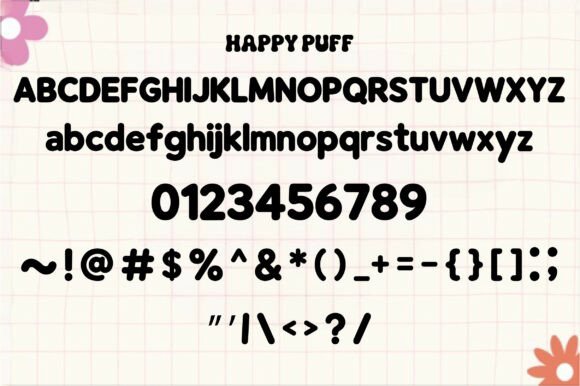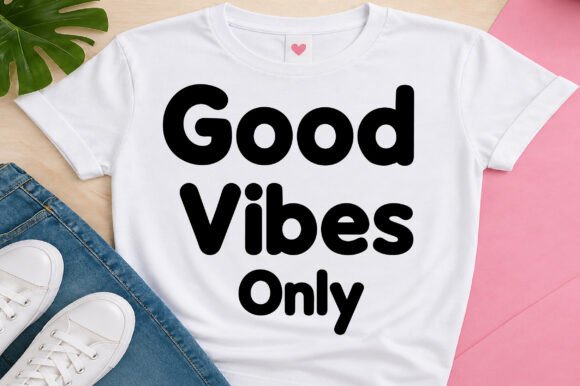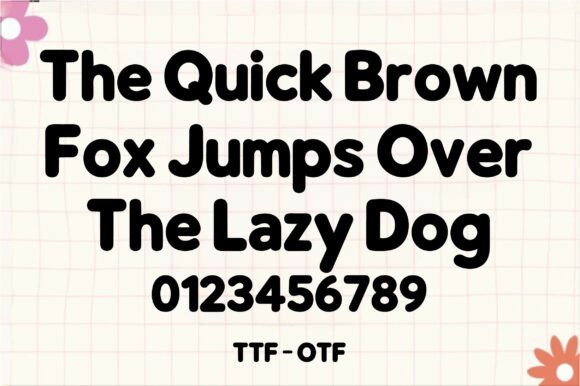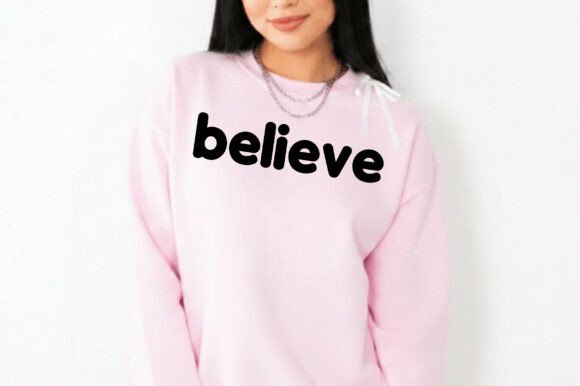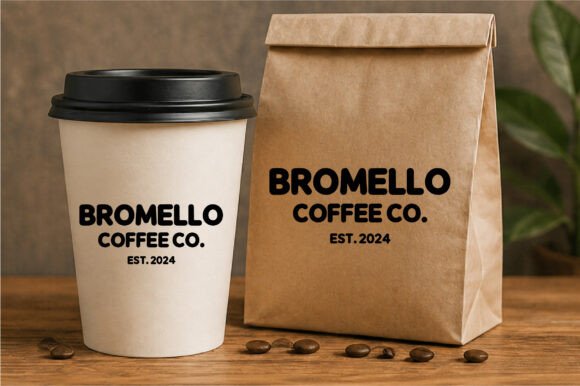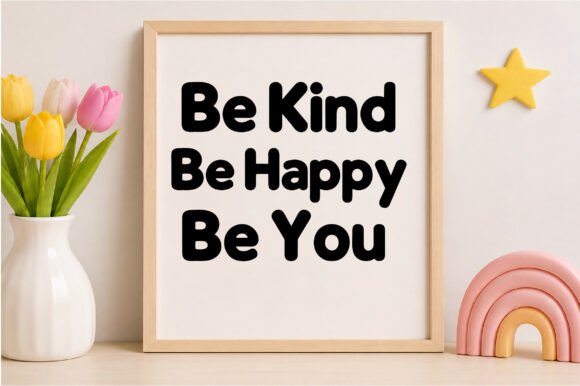
Introducing Happy Puff: The Playful Retro Display Font for Fun Designs
Are you looking for a font that adds a touch of playfulness and nostalgia to your designs? Look no further than Happy Puff, a bold and fun retro display font that’s perfect for kids’ designs, posters, t-shirts, stickers, branding, and social media graphics. With its rounded letters and cartoon style, Happy Puff is sure to bring a smile to your audience’s faces.
What is Happy Puff Font?
Happy Puff is a carefully crafted display font that features bold, rounded letters with a fun and playful twist. Its retro style is reminiscent of classic cartoons and childhood memories, making it an ideal choice for designs that require a touch of whimsy and nostalgia. The font includes uppercase and lowercase letters, numbers, and symbols, giving you everything you need to create engaging and eye-catching designs.
Key Features of Happy Puff Font
- Playful and retro style: Happy Puff’s unique design is sure to grab attention and add a touch of fun to your designs.
- Bold and rounded letters: The font’s bold and rounded letters make it perfect for creating eye-catching designs that are easy to read.
- Uppercase, lowercase, numbers, and symbols: Happy Puff includes a wide range of characters, giving you the flexibility to create a variety of designs.
- Perfect for kids’ designs: The font’s playful style makes it an ideal choice for designs aimed at children, such as kids’ party invitations, children’s book illustrations, and more.
Use Cases for Happy Puff Font
Happy Puff is a versatile font that can be used in a variety of design projects, including:
- Kids’ designs: Happy Puff is perfect for creating fun and engaging designs for kids, such as party invitations, children’s book illustrations, and kids’ clothing.
- Posters and flyers: The font’s bold and playful style makes it ideal for creating eye-catching posters and flyers for events, promotions, and more.
- T-shirts and apparel: Happy Puff is a great choice for designing t-shirts, stickers, and other apparel that requires a fun and playful touch.
- Branding and logos: The font’s unique style makes it perfect for creating memorable and engaging brand logos and identities.
- Social media graphics: Happy Puff is perfect for creating engaging social media graphics, such as Facebook posts, Instagram stories, and Twitter headers.
Why Choose Happy Puff Font?
With so many fonts available, why choose Happy Puff? Here are just a few reasons:
- Unique and playful style: Happy Puff’s unique design sets it apart from other fonts, making it perfect for designers who want to add a touch of whimsy to their designs.
- Easy to read: The font’s bold and rounded letters make it easy to read, even at small sizes.
- Versatile: Happy Puff can be used in a variety of design projects, from kids’ designs to branding and social media graphics.
Happy Puff is a fun and playful retro display font that’s perfect for designers who want to add a touch of whimsy to their designs. With its bold and rounded letters, cartoon style, and wide range of characters, Happy Puff is sure to become a go-to font for designers who want to create engaging and eye-catching designs. Whether you’re designing for kids, creating posters and flyers, or developing a brand identity, Happy Puff is the perfect choice.